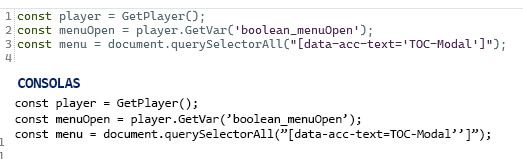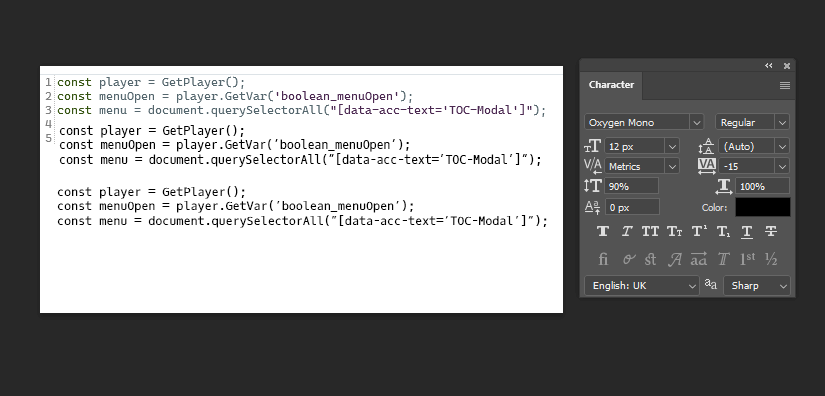
JS Editor Font
Does anyone know what the JS Editor font is? I like how clean it is, and would like to apply it as my font for VS Code and Terminal.
Having done that...Browsing the results... 'Consolas' looks like it is the best fit for it.
Alas there are still some differences when you test it in Photoshop. So its approximately at best.
As you can see in the image... several characters differ. l,( ) and "" for example.- BrentWilliam187Community Member
Restudying my own screenshots i came to the conclusion 'RF Rostin Regular' in fact looked more alike. As i dont have that font and didnot want to buy it to test i searched to find a similar free font.
As you can see in the image above i found one 'Oxygen Mono'. Being a monotyped font even better. Testing it , the top 3 lines is your sample. The middle 3 lines is Oxygen Mono but without finetuning the settings. As you can see... the font is a bit higher then the sample.
So in the last 3 lines i finetuned the settings... as seen in the Photoshop text panel.. and bingo... its exactly as your sample. Text aliasing is set on Sharp.